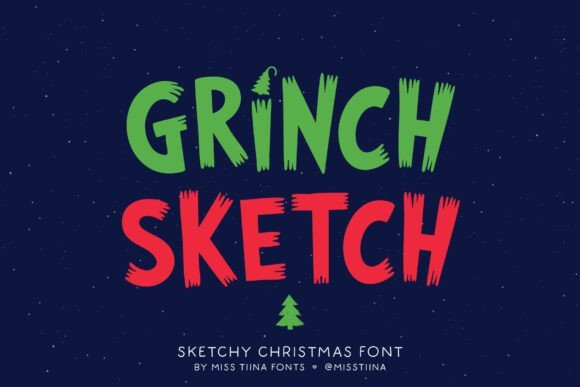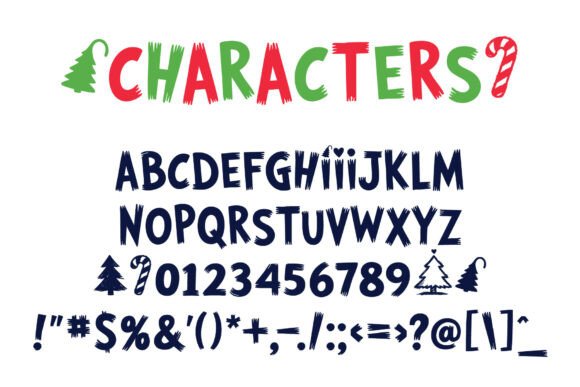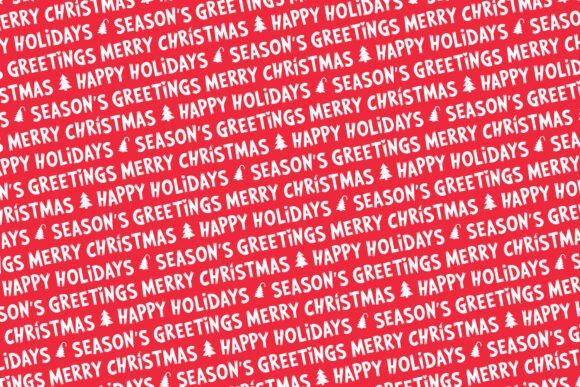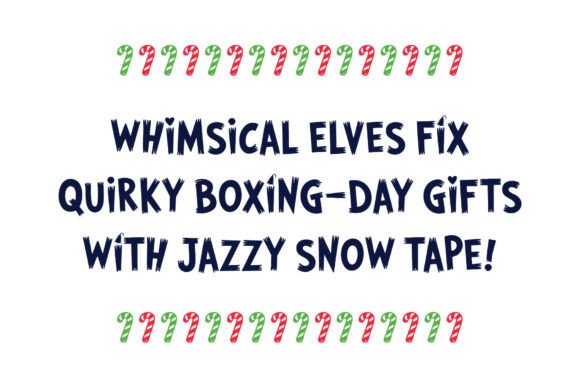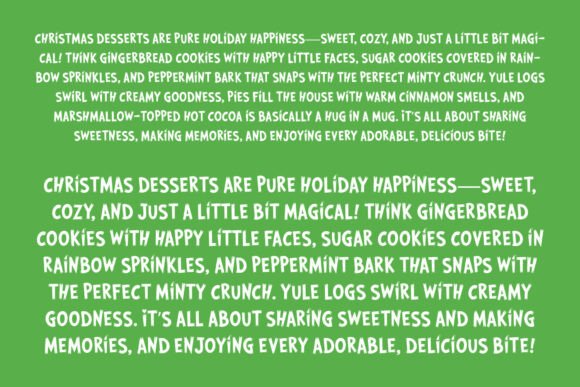
Get Ready to Spread Holiday Cheer with Grinch Sketch Font
Have you ever stared at a blank page, wondering how to bring some festive fun to your holiday designs? That’s exactly where I was a few months ago, searching for the perfect font to add a playful touch to my Christmas cards. And then, it hit me – the perfect blend of whimsy and charm that would make my designs truly special.
That’s where the Grinch Sketch Font comes in, a delightful all-caps font that effortlessly captures the magic of the holiday season. With its unique tree sketches, candy cane design, and three ‘i’ alternatives, this font is a game-changer for designers looking to add some personality to their work. Whether you’re creating attention-grabbing headlines, festive school projects, or cheeky Christmas party invitations, Grinch Sketch Font is sure to bring a smile to your face and a touch of holiday cheer to your designs.
Key Features of Grinch Sketch Font
- Font Family: Grinch Sketch Font is a unique, hand-drawn font family designed to resemble the Grinch’s character from the classic Dr. Seuss book.
- Unique Characteristics: The Grinch Sketch Font features intricate, hand-drawn illustrations and expressive letterforms that evoke a sense of whimsy and playfulness.
Grinch Sketch Font Review
Overall, I think the Grinch Sketch Font has some great qualities, but also some notable limitations.
- The font has a unique and playful feel that’s perfect for festive or humorous designs.
- The bold, expressive lines and exaggerated features of the Grinch character make it a great choice for illustrations or cartoons.
- The font is well-suited for use in digital and print media, and it’s relatively easy to read even in smaller sizes.
- The font may be too over-the-top for more serious or professional designs, and it could clash with more formal typography.
- The Grinch character’s facial expressions and body language can be somewhat one-dimensional, which may limit its use in more complex illustrations.
- The font is not particularly versatile, and it’s primarily suited for use in a specific style or theme.
In general, I think the Grinch Sketch Font is a fun and engaging choice for designers who want to add some personality to their work. However, it may not be the best fit for every project or client. As with any font, it’s essential to consider the overall style and tone you’re aiming for before using it.
The Grinch Sketch Font is perfect for creating a whimsical, hand-drawn feel for your designs. Use it for holiday-themed projects, children’s book illustrations, or any project that needs a playful touch. Tips for getting the most out of this font include experimenting with different font sizes and styles to create visual interest.